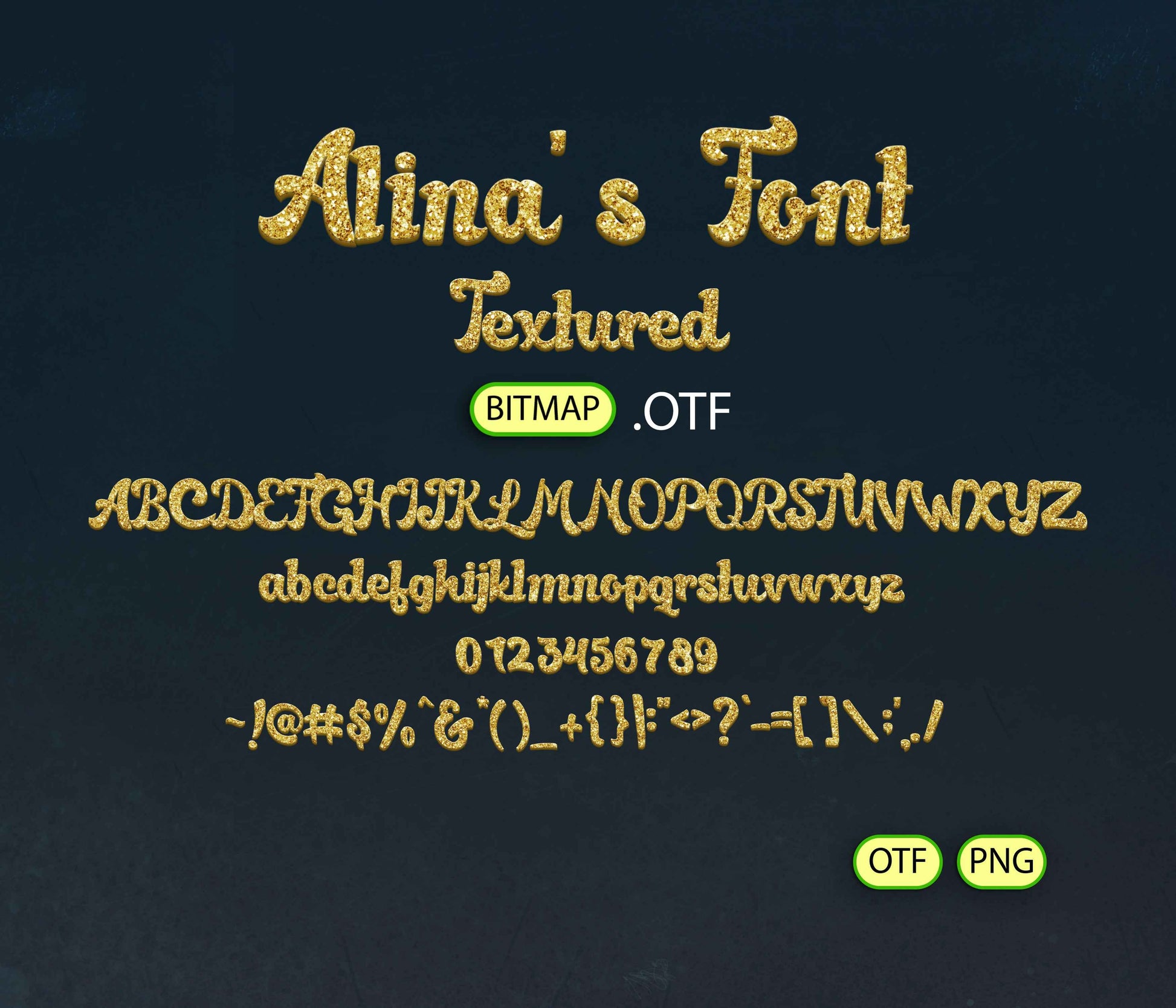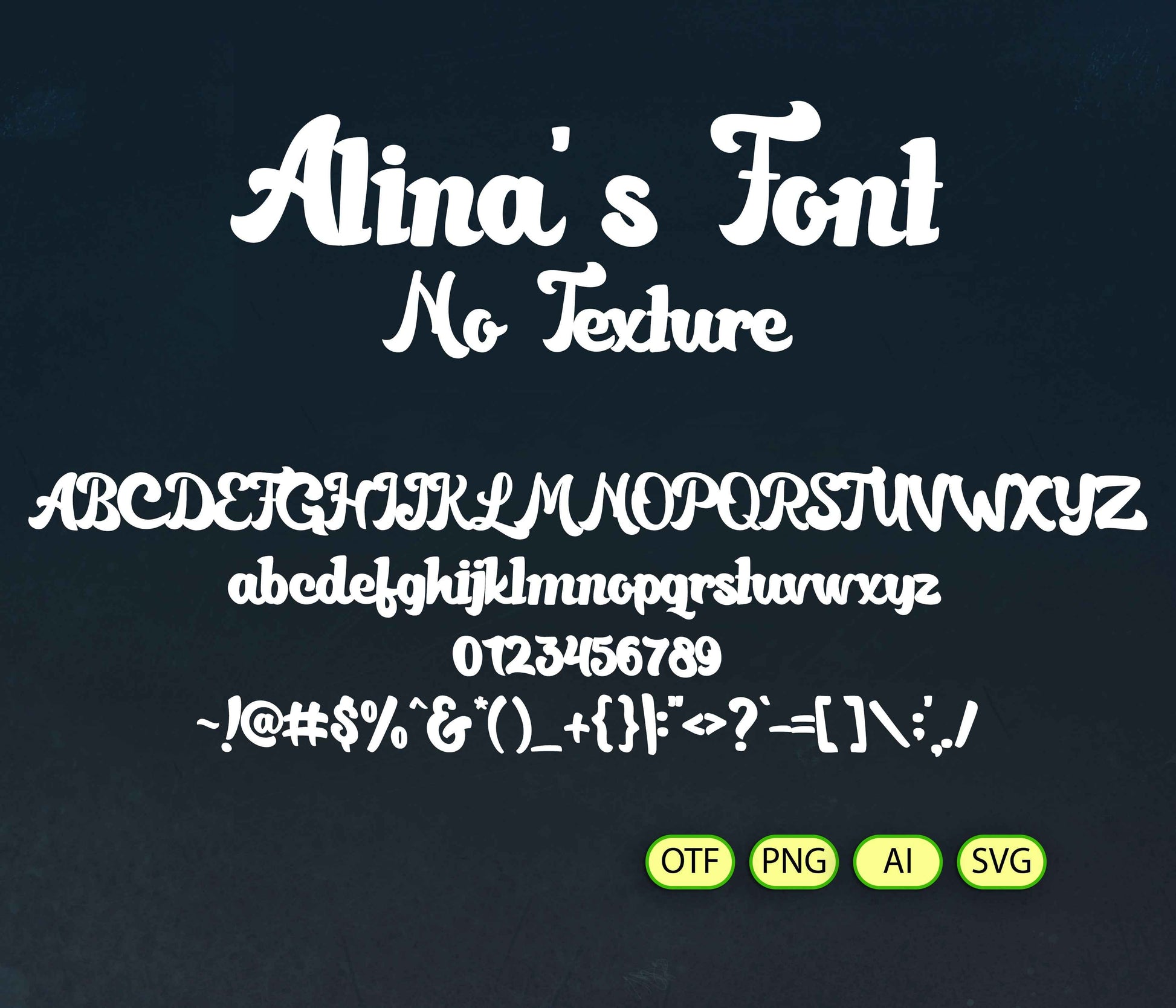
Glittering Gold Diamond Font Textured
Introducing the Alina's Glittering Gold Diamond Font Textured – where luxury meets the festive spirit. This dazzling font, studded with glittering gold and sparkling diamonds, is perfect for bringing a touch of opulence to your Christmas decorations. Each letter radiates the warmth of gold and the brilliance of diamonds, designed to make your holiday season shine brighter.
With Alina's Glittering Gold Diamond Font Textured your holiday messages won't just be read; they'll be cherished. Use it to create standout Christmas cards, enchanting event invites, or elegant seasonal decor. This font is not just a style; it's a statement, promising to turn your festive visions into exquisite reality. Whether for personal projects or commercial designs, it's sure to sprinkle a golden sparkle on your holiday cheer.